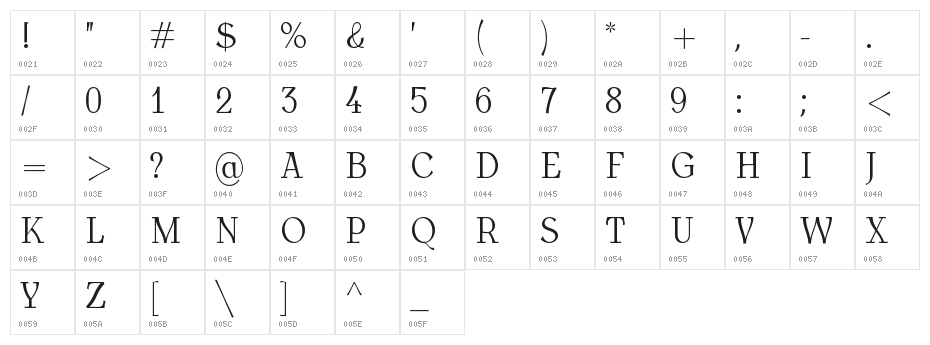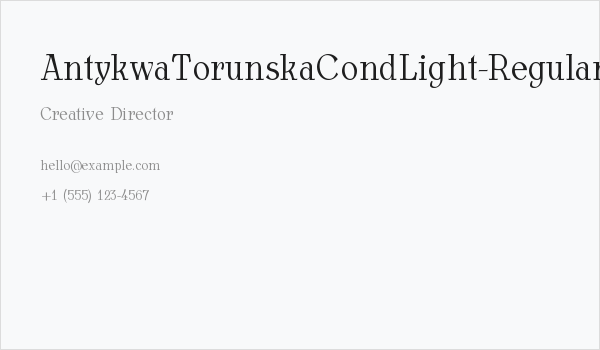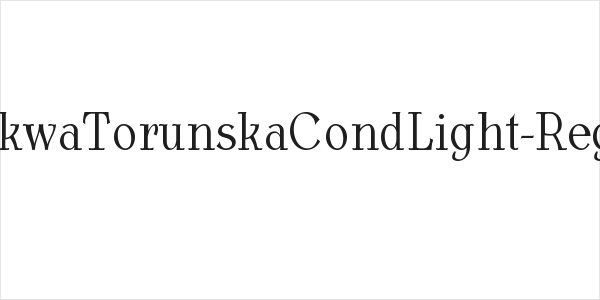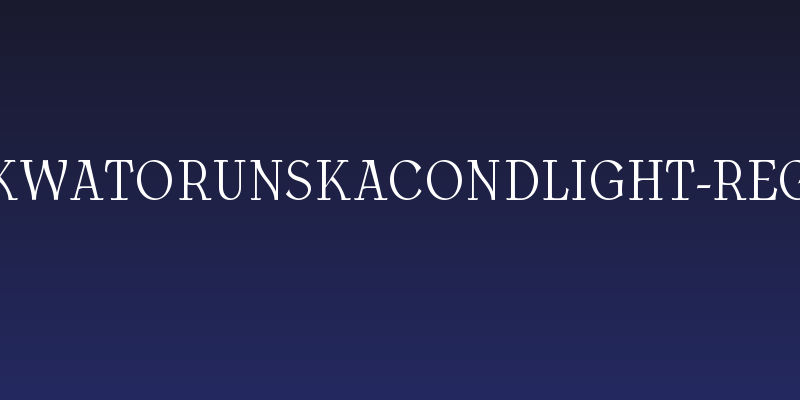
AntykwaTorunskaCondLight-Regular Font
AntykwaTorunskaCondLight-Regular Description
This font features a classic serif design with elegant, thin strokes and slightly condensed letterforms. The serifs are pronounced, adding a touch of sophistication and readability. The uppercase letters are tall and stately, while the lowercase letters maintain a consistent x-height, contributing to a harmonious appearance. The numerals are clear and distinct, making them suitable for both text and display purposes. Special characters are well-integrated, maintaining the overall aesthetic of the font. The design is versatile, suitable for both traditional and modern applications.
| Proposed Projects | Ideal for editorial design, book covers, formal invitations, and branding projects that require a touch of elegance. |